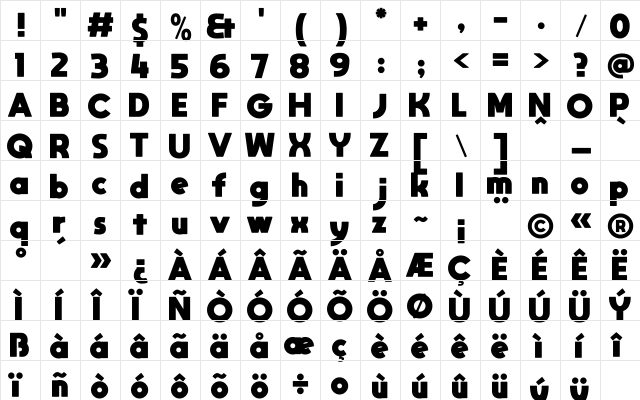
MOON GET! Heavy
Design Context for MOON GET! Typeface
MOON GET! offers clean, dependable letterforms without strong stylistic allegiance, making it a practical choice for designers who need flexibility.